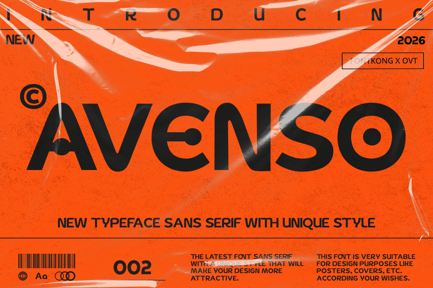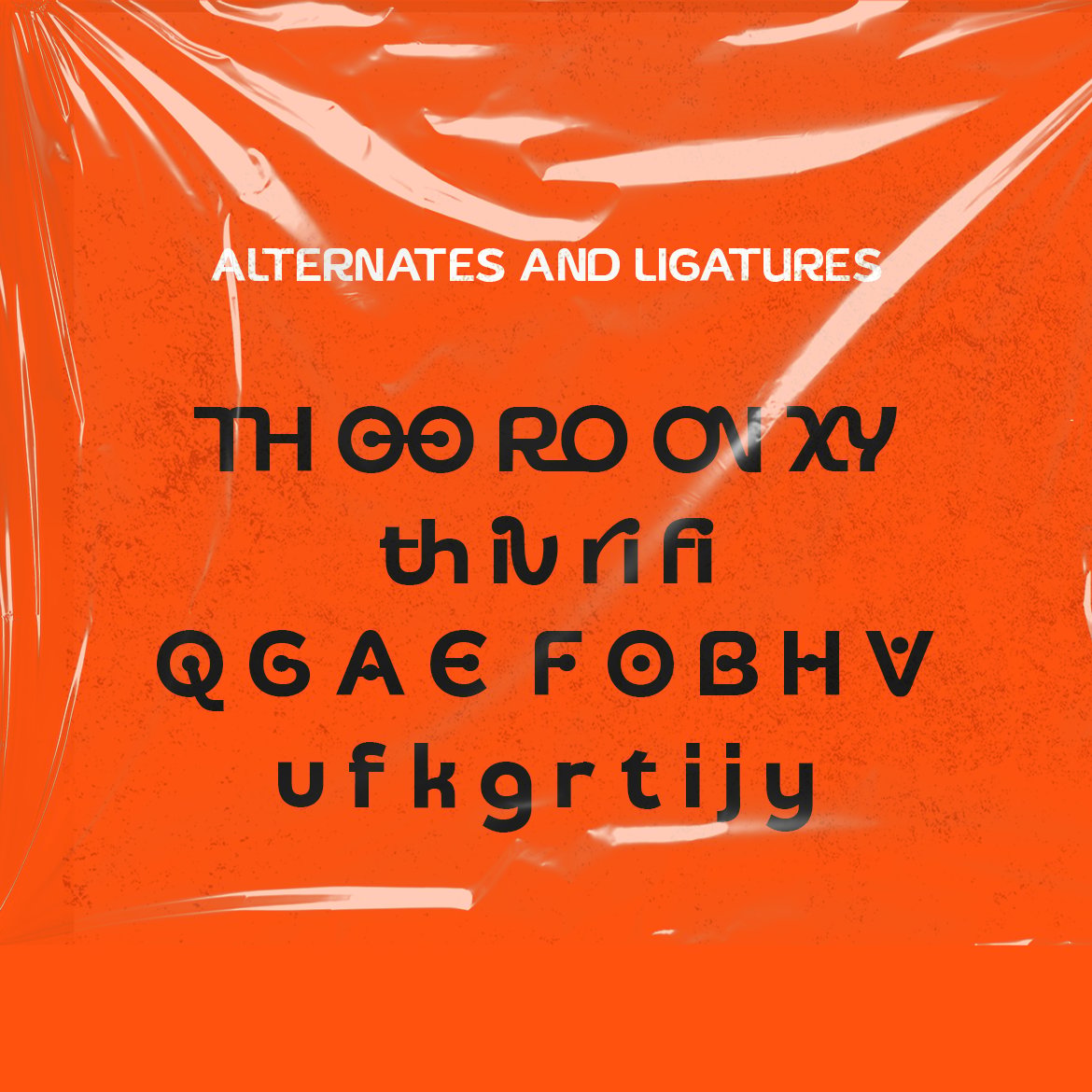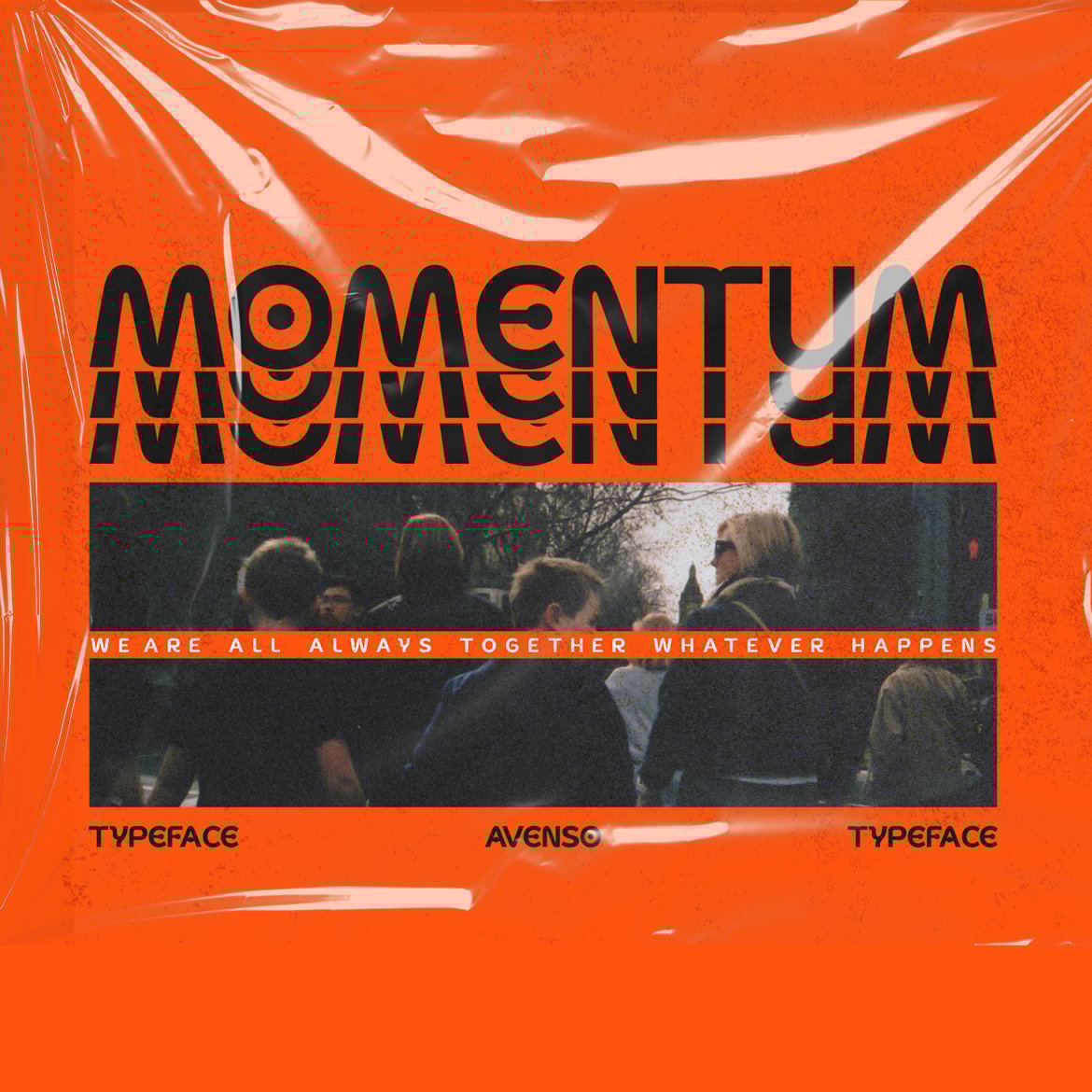
Avenso – New Sans Serif Typeface with Unique Style
Ideal for branding, logos, web design, editorial content, and packaging, Avenso’s clean lines and unique character shapes provide a sophisticated and memorable aesthetic. Each letter is meticulously designed to ensure exceptional readability and visual harmony, making your designs both stylish and effective.